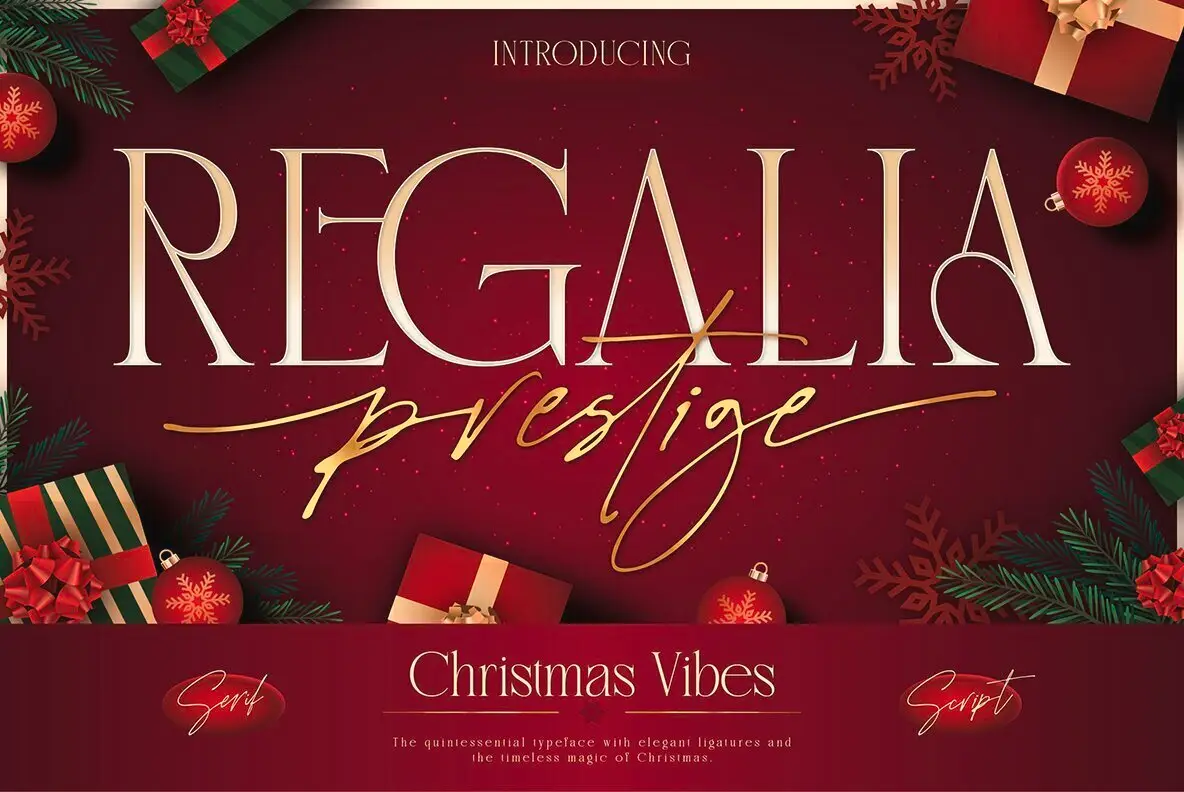
Regalia Prestige Font
Regalia Prestige Oblique
Regalia Prestige Script
Regalia Prestige Serif
Immerse yourself in the sophistication of Regalia Prestige, a typeface pairing that infuses your design projects with the refined spirit of the holiday season. With its refined serif forms paired with a graceful handwritten script, this font duo ensures a festive elegance that seamlessly blends tradition with a modern twist. The serif style is an embodiment of timelessness, making it ideal for magazine covers, invitations, and luxury branding. Simultaneously, the script offers a heartfelt touch, reminiscent of a handwritten note sealed with affection. Together, they form a harmonious blend that enhances any creative endeavor with their complementary charm. Regalia Prestige brings a festive sparkle to Christmas cards, seasonal packaging, or editorials, radiating with meticulously crafted details that capture the warmth and magic of the holidays. Features:Regalia Prestige: Elegant Typeface Duo for Festive Designs